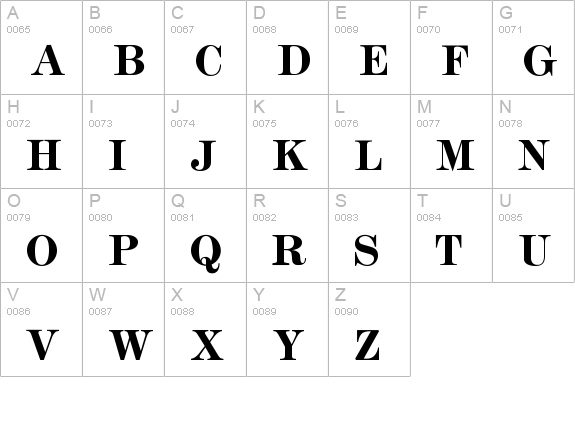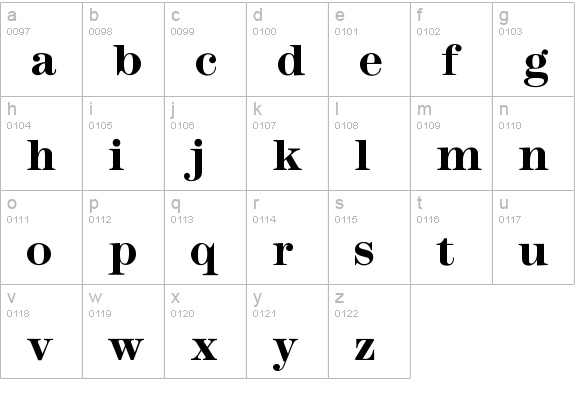
Introducing ModernBold font, a sleek and contemporary typeface designed to make a bold statement. With its clean lines and modern aesthetic, ModernBold is perfect for adding a touch of sophistication to your designs. This versatile font is suitable for a wide range of projects, from branding to editorial design. What sets ModernBold apart is its striking presence and ability to command attention. Whether used in headlines, logos, or graphic elements, this font exudes confidence and modernity. Its bold and impactful design ensures that your message will stand out and leave a lasting impression. Best of all, ModernBold is available for free download at FontsMarket.com. This means you can easily access this premium font and use it in your projects without any cost. Don't miss out on the opportunity to elevate your designs with the stylish and contemporary ModernBold font. Download it today and start creating visually stunning designs that are sure to captivate your audience.